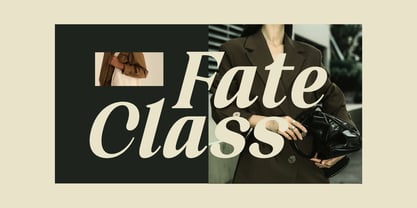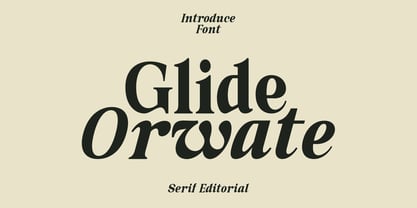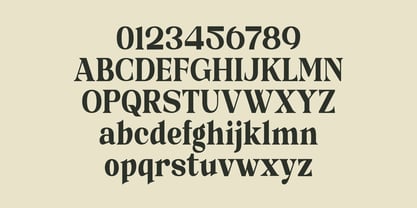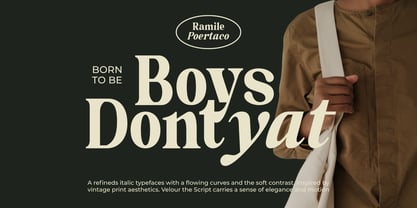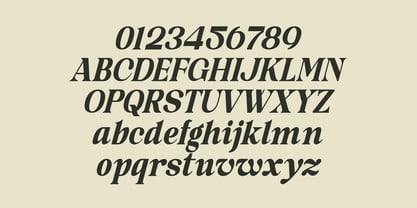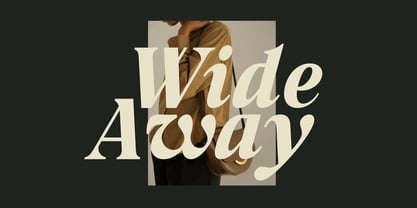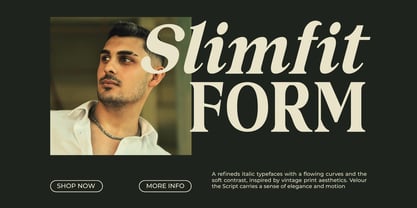
Glide Orwate
by Maikohatta
The Glide Orwate Font Family was designed by Gilang Ternadho and published by Maikohatta. Glide Orwate contains 2 styles and family package options. More about this family
Introducing our new product Glide Orwate – Elegant Editorial Serif
Glide Orwate is a refined and elegant editorial serif typeface designed to bring a touch of sophistication and luxury to your creative projects. With its smooth curves, high-contrast strokes, and stylish letterforms, this font perfectly captures the essence of modern fashion and classic beauty.
Carefully crafted for high-end branding, Glide Orwate delivers a graceful and professional look, making it ideal for editorial layouts, magazine headlines, logos, and premium packaging. Its distinctive character shapes add personality while maintaining excellent readability.
Whether you're working on fashion branding, luxury logos, wedding invitations, or stylish social media content, Glide Orwate will elevate your design with a timeless and classy feel.